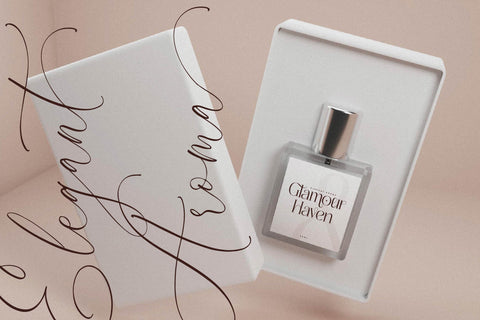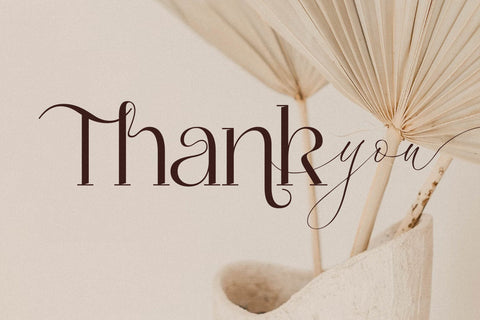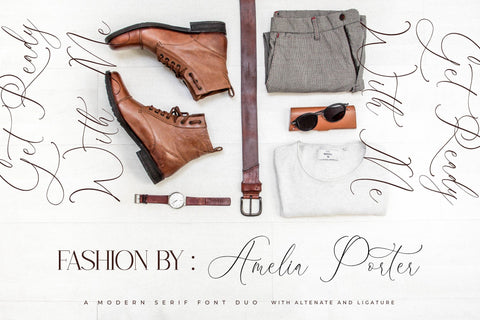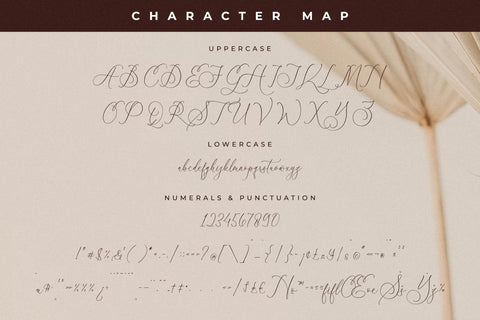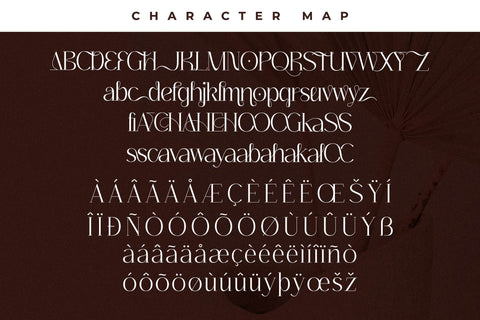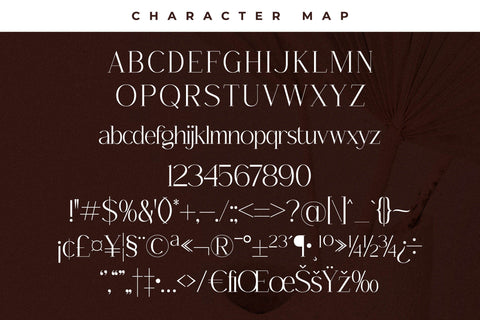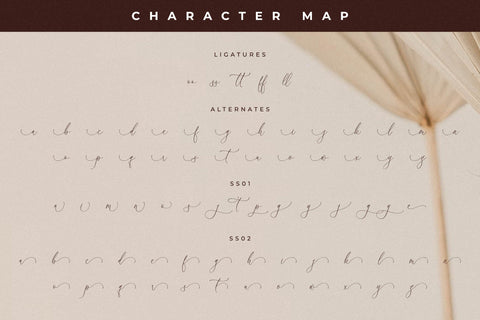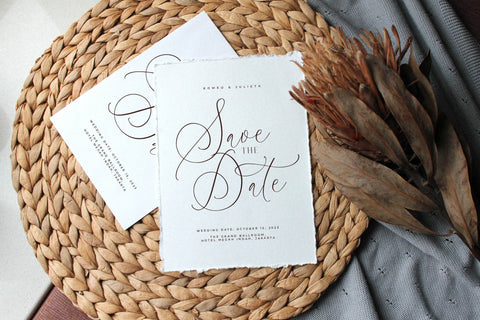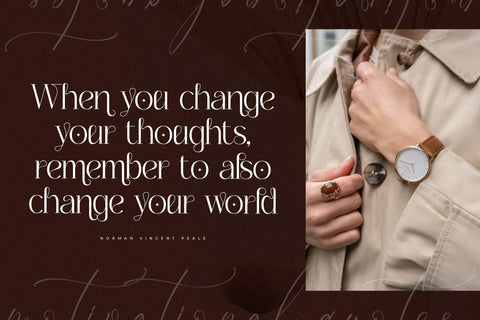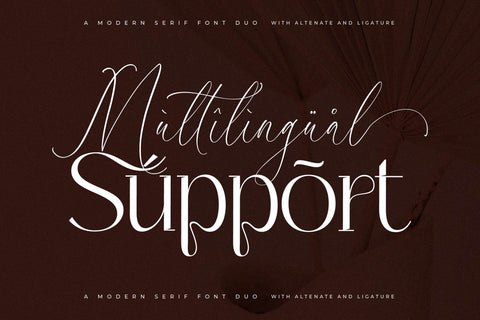
Tropical Qebalon Font Duo
Proudly present Tropical Qebalon Font Duo , created by Storytype,
A serif and script typeface that has own unique style & modern look.